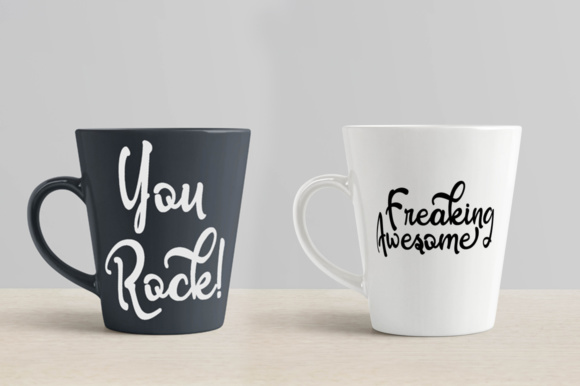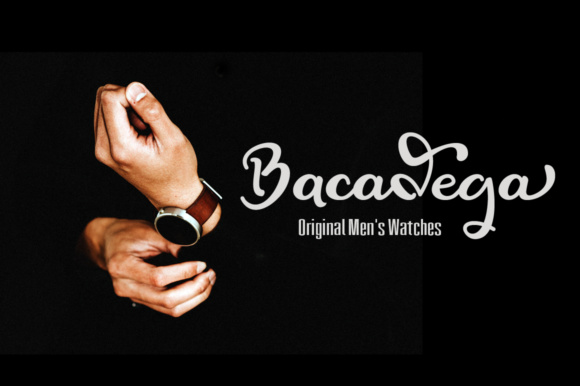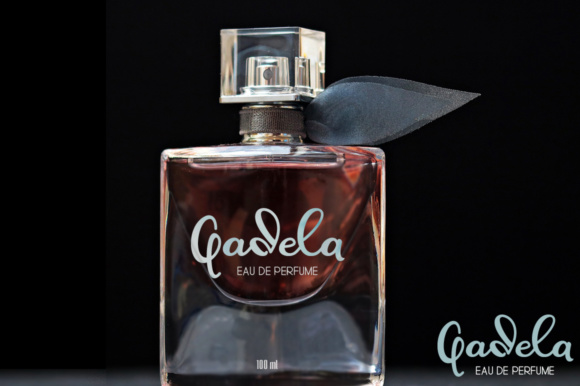
Olcigatte Bold Script Font
Introducing Olcigatte Font. The Olcigatte is a bold script font built with unique characters. It has a striking, yet elegant look which makes it perfect for a wide range of design projects.